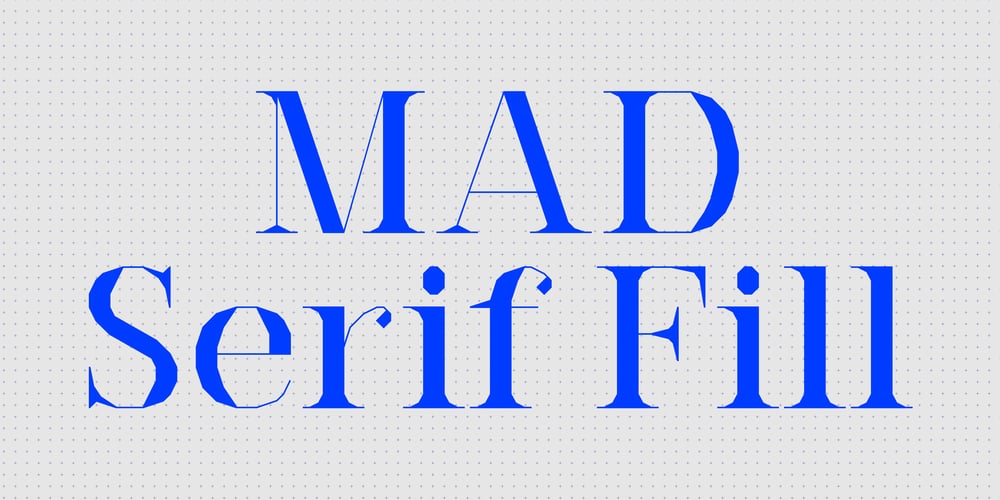
MAD Serif Fill Font Family was designed by Dries Wiewauters and published by Studio Dries Wiewauters. MAD Serif Fill contains 8 styles and family package options. MAD Serif is the more elegant side to the MAD family, with a similar harshness to MAD Sans but with a shape that is more graceful and features that become sharper and delicate at points. Like MAD Sans, an initial rough first appearance makes way for a balanced and sophisticated typefamily, ready for use in different sizes to give flair to headlines and an interesting texture to body copy. Designer Dries Wiewauters fascination for the typography programmed in CAD systems arose while working with CAD drawings at Werkplaats Typografie. MAD is an acronym for Machine Aided Design, a direct reference to CAD (Computer-Aided Design), which reveals the typeface’s starting point. Early printings of CAD plans were done with plotters that drew every single line of the instruction, special typefaces had to be designed for the dimensions and other information. These were constructed out of lines and not outlines of shapes. With their rendering dictated by the resolution of the output device, their final form was not fixed. The two type families are a reinterpretation that tries to make the most of their grid-based nature — a tribute to historical and forgotten form.